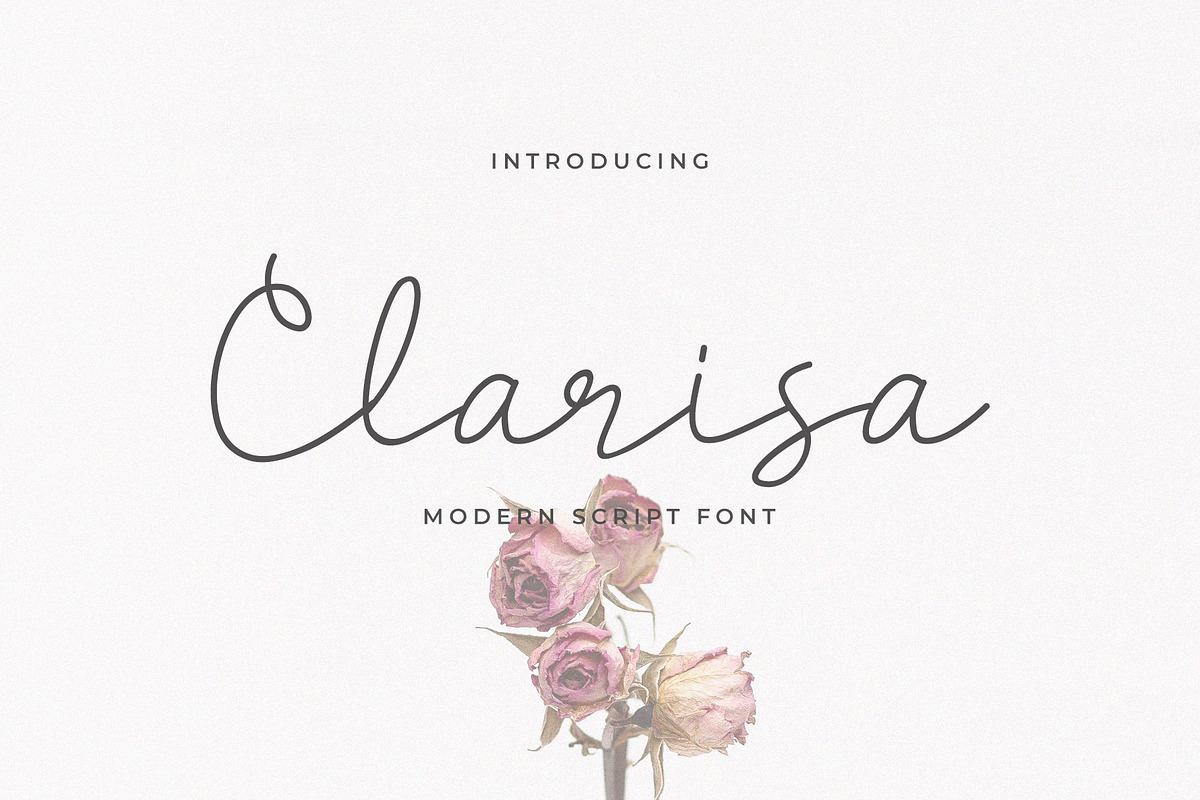
Clarisa Modern Script Font Free Download is a beautifully flowing typeface that brings elegance, femininity, and a modern touch to your design projects. With its smooth strokes, delicate curves, and natural handwritten style, this font is perfect for wedding invitations, branding for beauty products, social media posts, and stylish logos.
Clarisa Modern Script Font Free Download offers an authentic calligraphic feel while maintaining excellent readability. It includes lovely alternates and ligatures that allow you to create a personalized and graceful look with ease.
Whether you're working on print or digital materials, this font will add charm and sophistication to your typography. Feel free to try it out in mockups or personal designs, but keep in mind that a commercial license is required for professional use. Let your projects shine with the modern elegance of Clarisa.